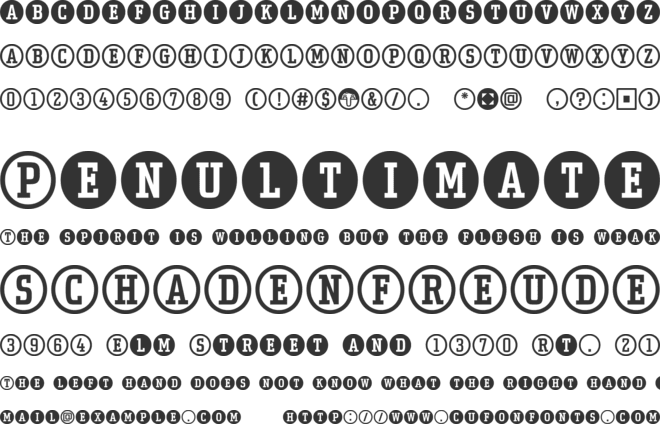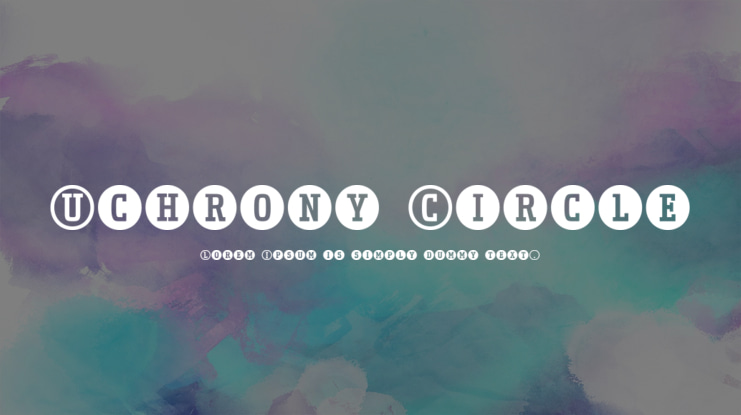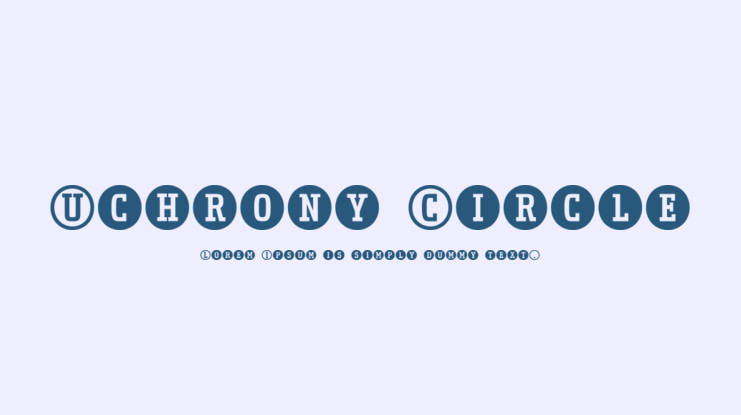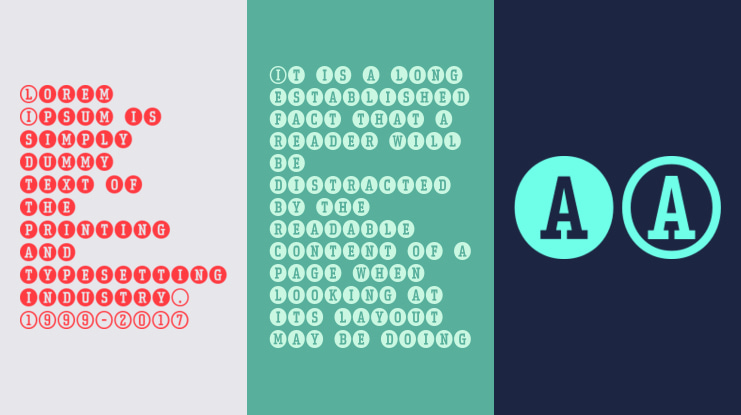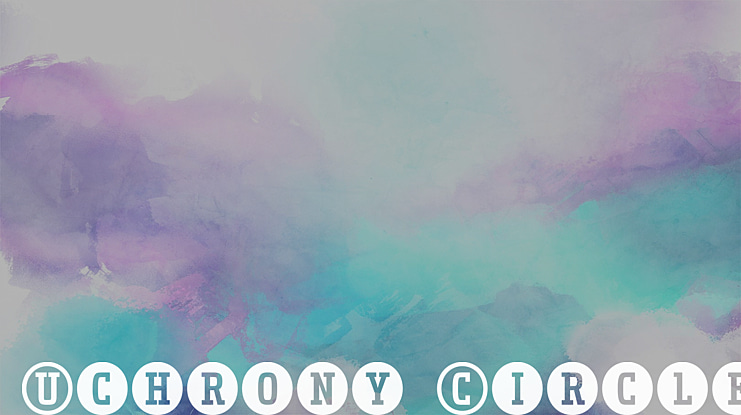
Uchrony Circle Font Family
Fernando Haro
Uchrony is a condensed proportion slab serif typeface. The font family is made up of 3 styles, Roman, Small Caps & Italics, with 6 weights each (Extra Light, Light, Regular, Medium, Bold and Extra Bold).
This is an extra style for composing titles, where each number or letter is circled.